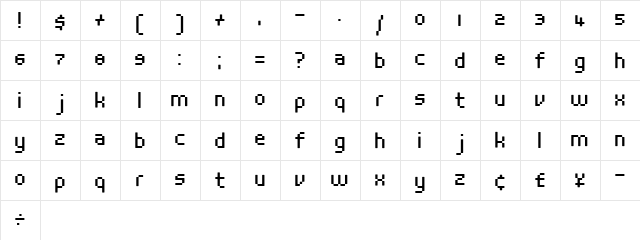
Stedelijk Regular
Design Context for Stedelijk Typeface
Stedelijk is a composed and adaptable typeface that performs quietly and consistently across a wide range of design contexts.